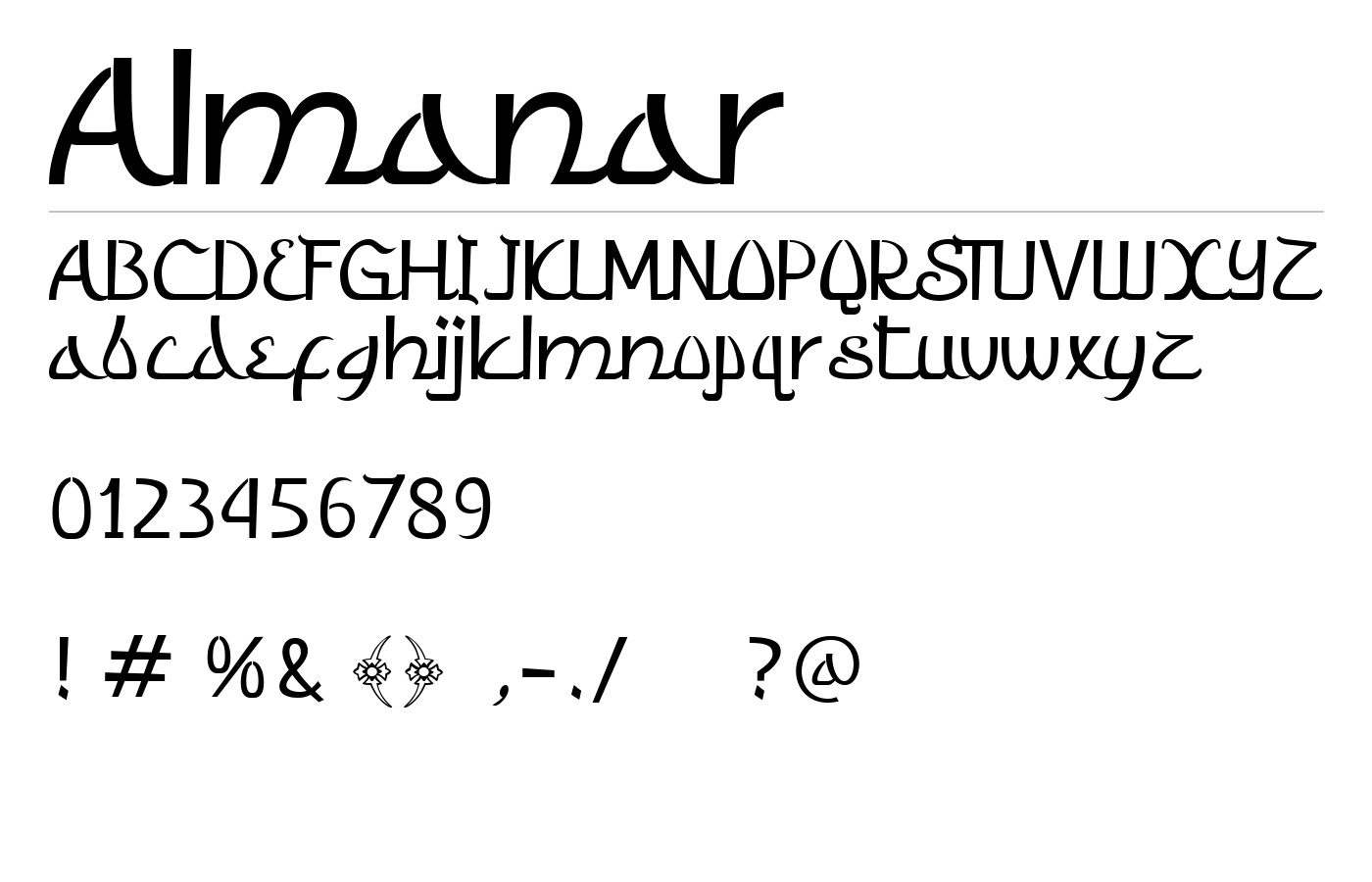
Almanar is a distinctive serif font with elegant, narrow letterforms and a unique blend of sharp and curved strokes that give it a slightly handcrafted, artistic feel. Its medium weight and moderate contrast between thick and thin lines create a refined yet approachable style, making it well-suited for creative branding, editorial headlines, and decorative uses where a touch of sophistication and individuality is desired. The font’s quirky, calligraphic details add personality, making it ideal for projects that want to stand out with a stylish and memorable look.
Almanar Font
About Almanar Font
| Designer | Ali Hamidi |